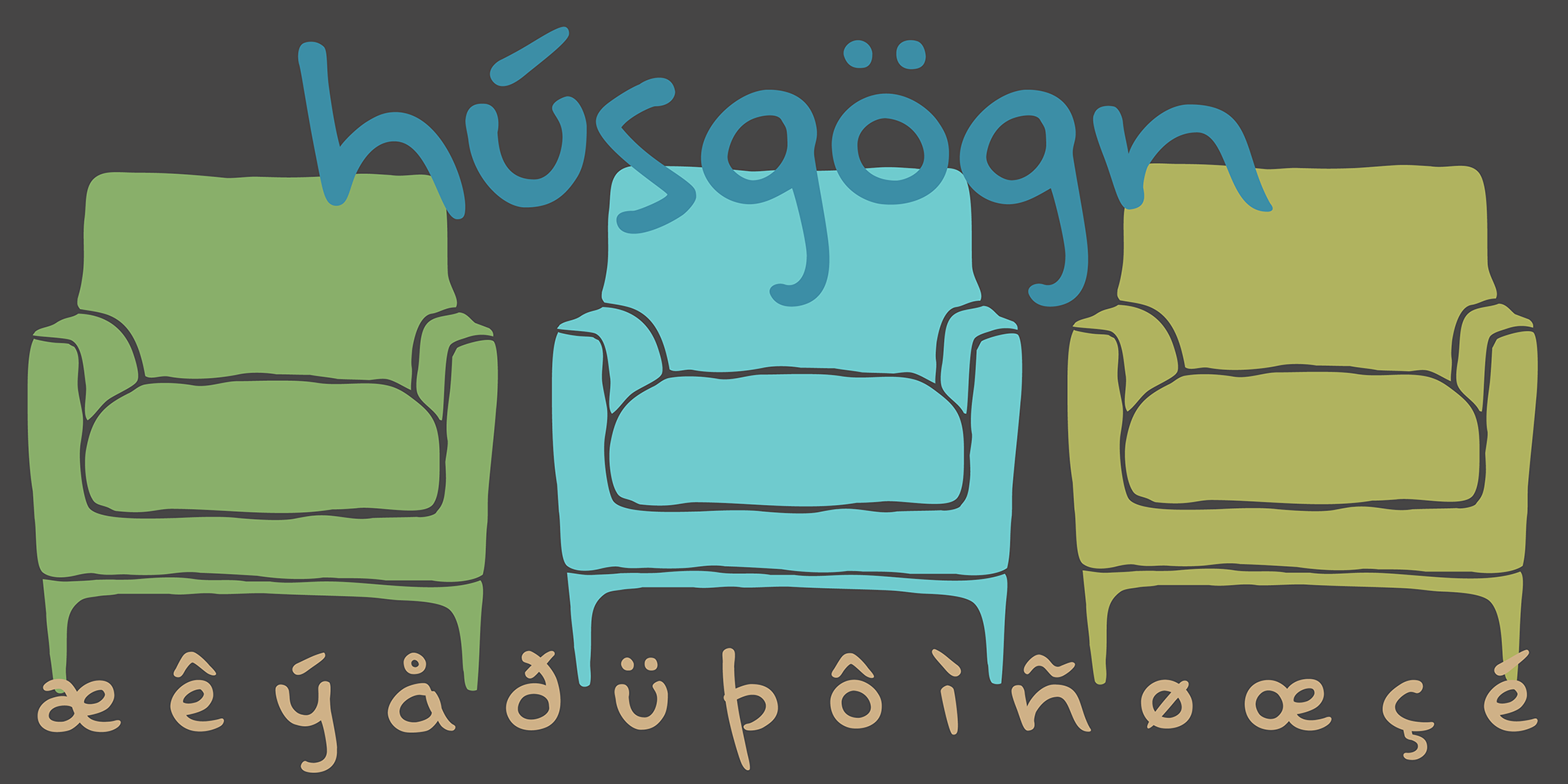
Rabbet
Designed by Amy Dietrich, Rabbet is a hand drawn and script font published by Atlantic Fonts.
Rabbet is based on the handwriting of furniture designer and maker, Aaron Fedarko. It’s friendly, bold, condensed, and left-slanting. Rabbet’s special feature, besides loads of boyish charm, is a load of hand written fractions as discretionary ligatures. Whether you’re into woodworking or you just want a cool, maybe slightly rebellious, handwritten font, Rabbet is ready to do the work.
Foundry Atlantic Fonts
Styles Hand Drawn, Script
Designer Amy Dietrich